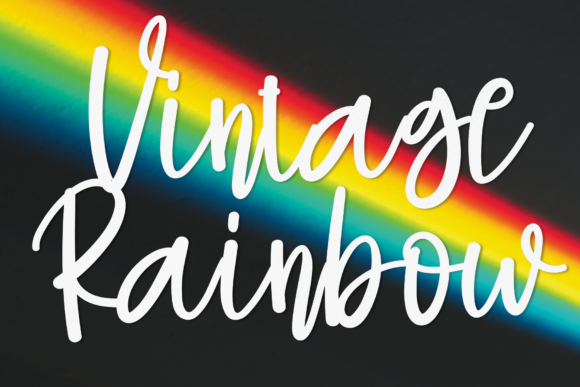
About Vintage Rainbow Font
Vintage Rainbow is a chic and trendy handwritten font. This original look will appeal to a wide range of crafty ideas, from letterheads and titles, to stationery.